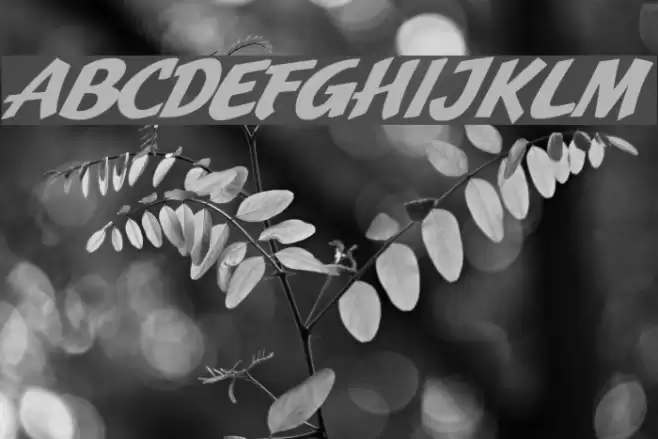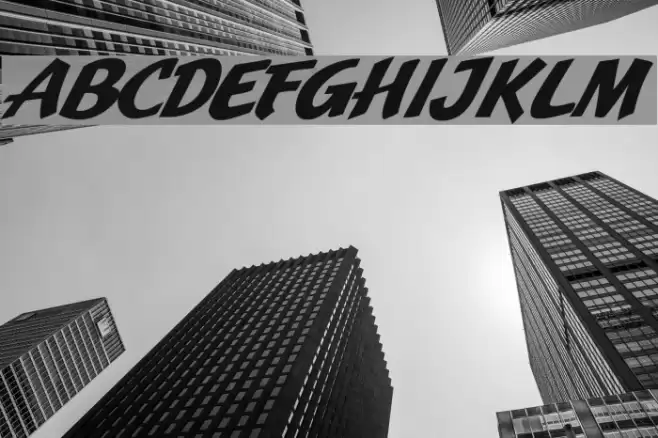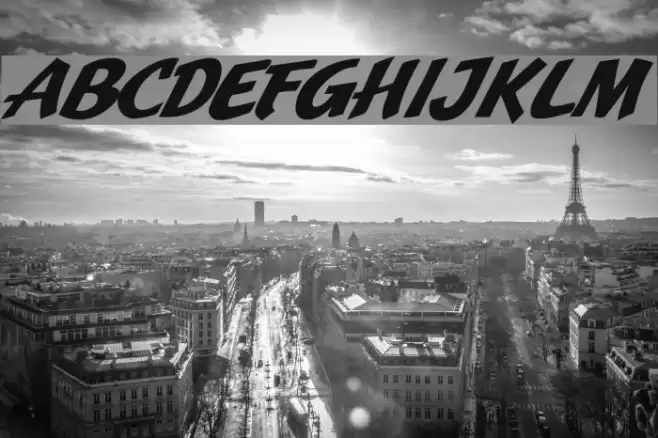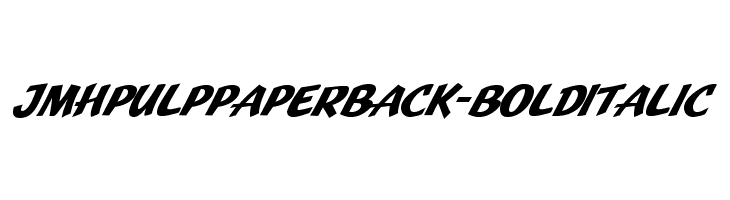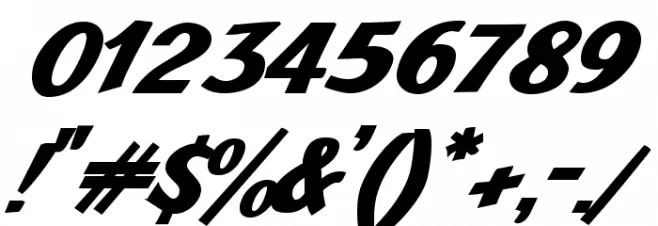
JMHPulpPaperback-BoldItalic
This font features a bold and italic style with a dynamic and energetic appearance. The letters are slanted, giving a sense of motion and urgency. The strokes are thick and consistent, providing a strong presence on the page. The characters are slightly condensed, which enhances the compact and impactful look. The font includes both uppercase and lowercase letters, numerals, and a variety of special characters, making it versatile for different design needs. Its boldness and slant make it ideal for attention-grabbing headlines and titles.
A bold, italic font with a dynamic and energetic style.
- Proposed Projects: Ideal for book covers, posters, and branding materials that require a bold and striking appearance.
- Width: Condensed